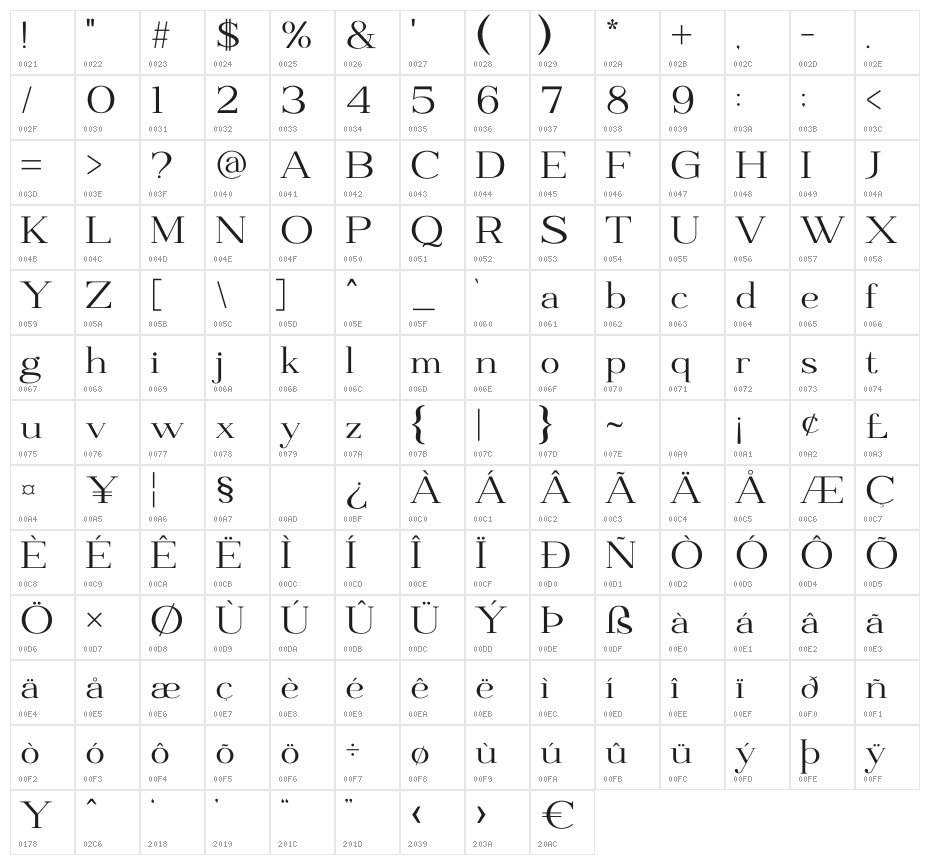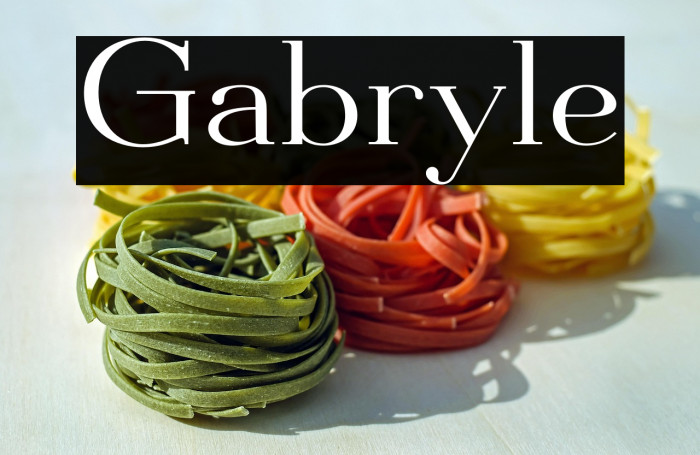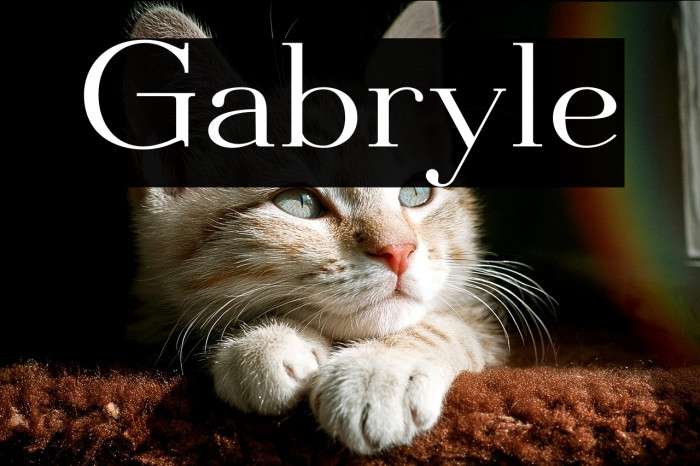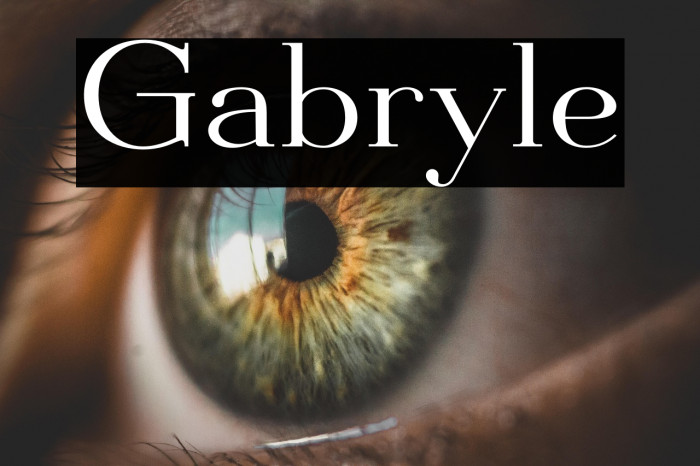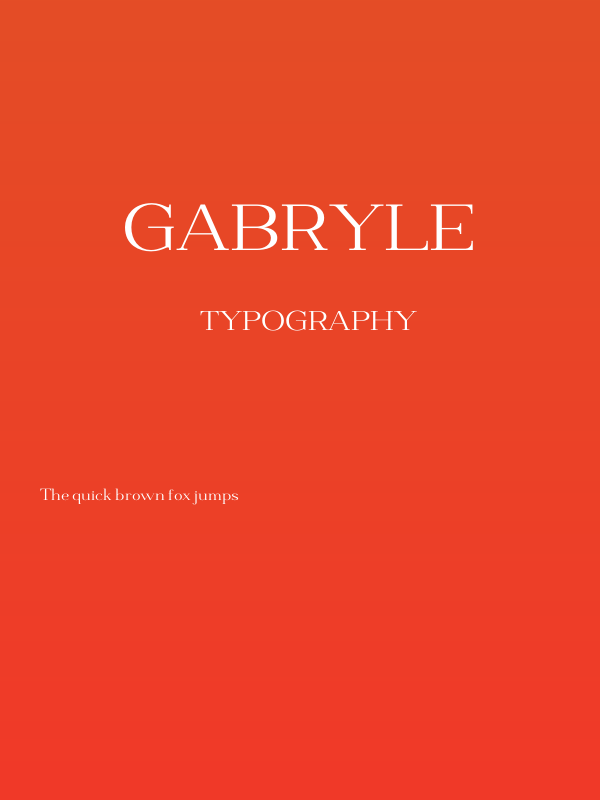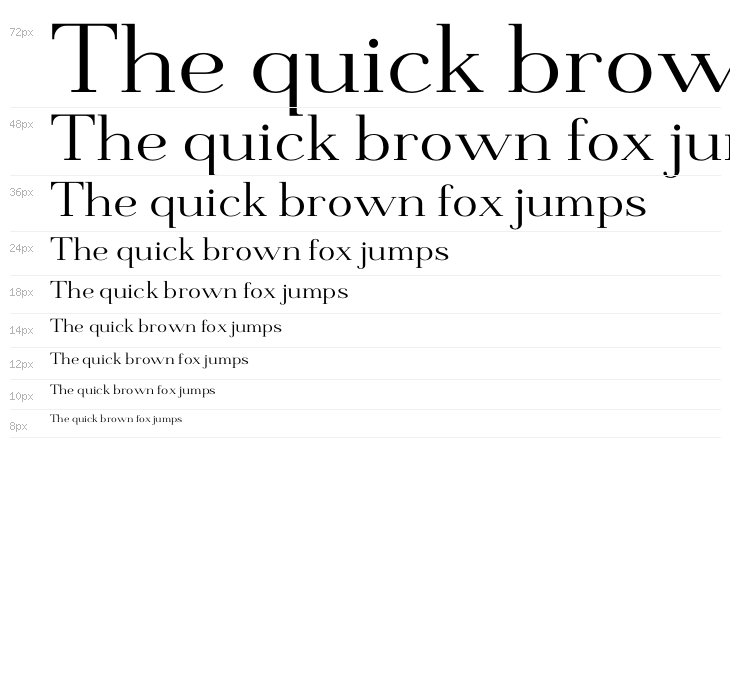
Gabryle Font
Gabryle Description
This font exudes a classic elegance with its refined serif style. The uppercase letters are tall and stately, with a balanced proportion that conveys a sense of tradition and authority. The lowercase letters maintain a harmonious flow, featuring gentle curves and subtle serifs that enhance readability. Numbers are clear and distinct, making them suitable for both formal and casual contexts. The special characters are thoughtfully designed, complementing the overall aesthetic. The font's medium contrast in stroke thickness adds to its timeless appeal, making it versatile for various design applications.
| Overall Style | Classic |
| Use Case | Headlines, Body text, Logos |
| Proposed Projects | This font is perfect for editorial design, book covers, formal invitations, and branding projects that require a touch of sophistication. |